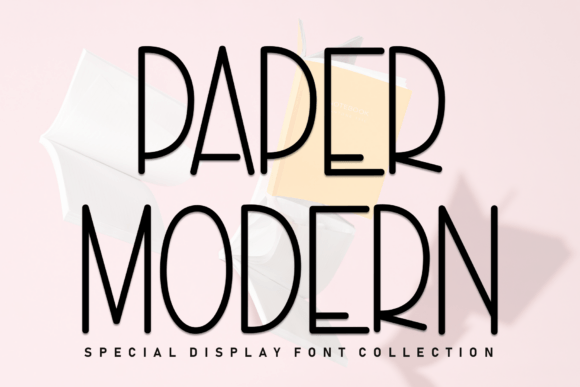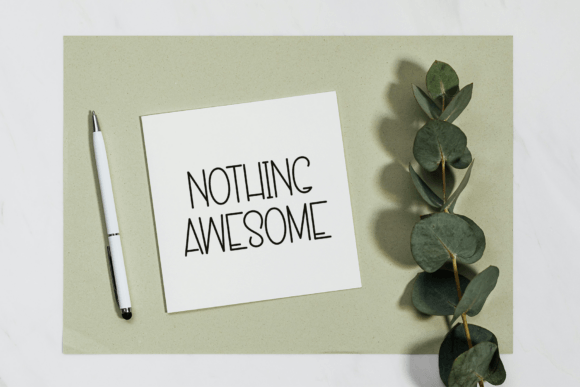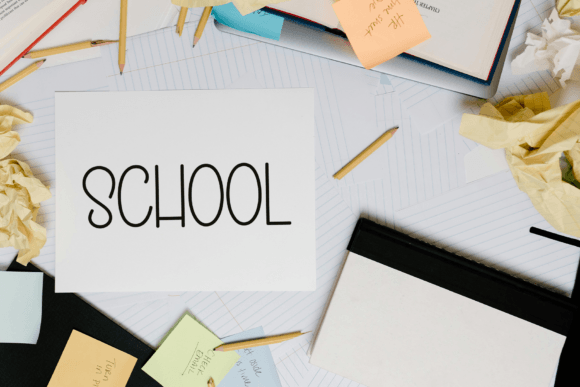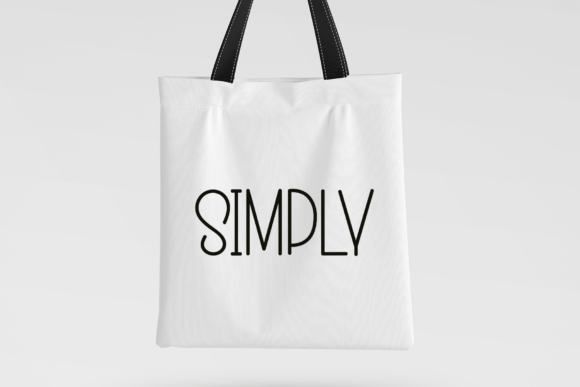
Paper Modern Font
About the Paper Modern Font
Discover the charm of Paper Modern Font. This font is a perfect blend of modern aesthetics and classic appeal. Paper Modern is a handwritten font that looks like it was drawn with a marker. Having a relaxed and sporty feel, it is very suitable for branding, logos, wedding supplies, greeting cards, fashion, lookbooks, marketing promotions, and whenever you want your design to look luxurious and elegant but still casual.
Paper Modern’s relaxed yet elegant style shines in headlines, short-form text on packaging, and branding applications where a touch of casual sophistication is desired. It works particularly well for projects related to fashion, lifestyle, and events, conveying a modern and approachable feel. Avoid using it for body text or long paragraphs; its handwritten nature can hinder readability in extensive blocks of text.
This font pairs well with clean sans-serif fonts like Montserrat or Open Sans for a balanced contrast, or with a more geometric sans-serif like Futura for a modern, minimalist aesthetic. For a touch of classic elegance, consider pairing it with a subtle serif like Garamond or Lato.
Its overall personality is best described as sophisticated yet approachable; bold enough to make a statement but friendly enough to maintain approachability.
Paper Modern Font Usage Examples
Paper Modern Font Example